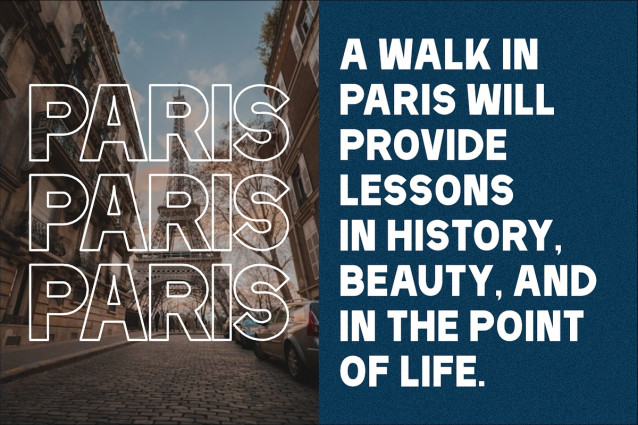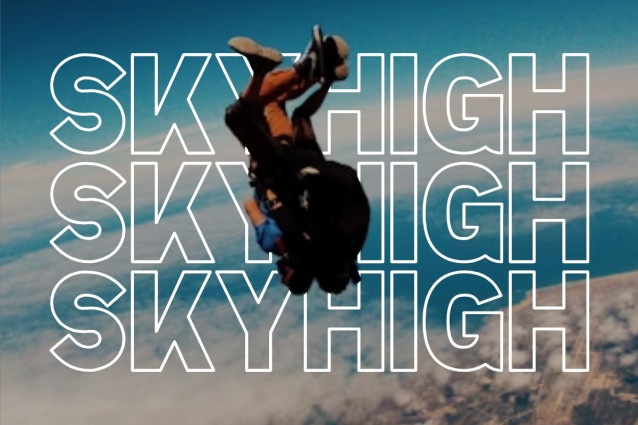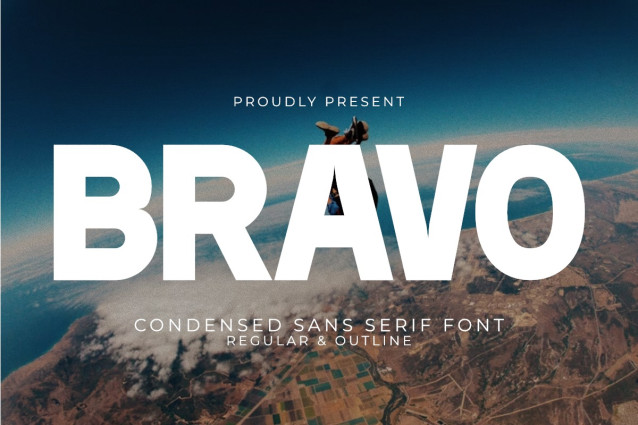
Bravo Sans Font
Bravo Sans Font is a bold, ultra condensed sans serif font that expertly blends classic, modern, and vintage aesthetics. Its tall, impactful letterforms are perfect for making a strong statement in limited space. With two distinct styles—Regular and Outline—this font offers great flexibility, allowing you to create anything from clean, modern designs to layered, retro looks.